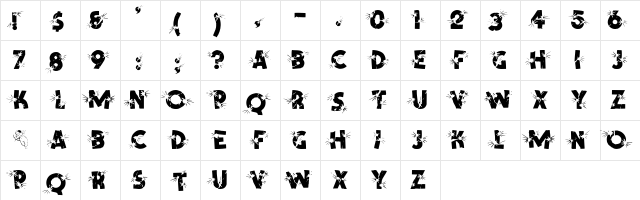
Shotling Regular
Design Context for Shotling Typeface
Shotling is a composed and adaptable typeface that performs quietly and consistently across a wide range of design contexts.